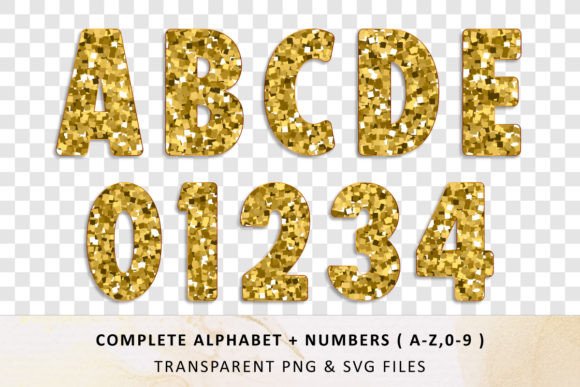
Gold Glitter Font
Introducing “Gold Glitter” font with a classy touch. — glitter is one of the most awe-provoking things! Its mesmerizing shine twinkles like someone cast a spell on it that will brighten up each of your designs. Perfect for logos, posters, websites, T-shirts and more. Add it confidently to your projects, and you will love the results.